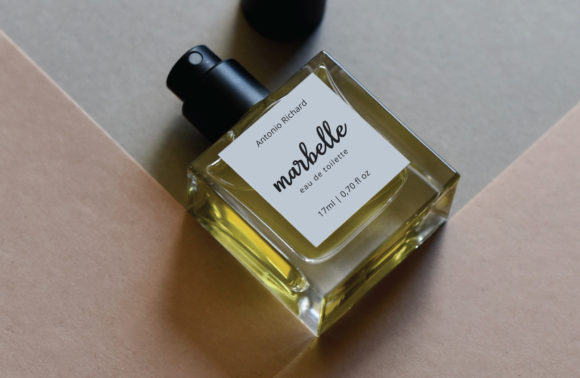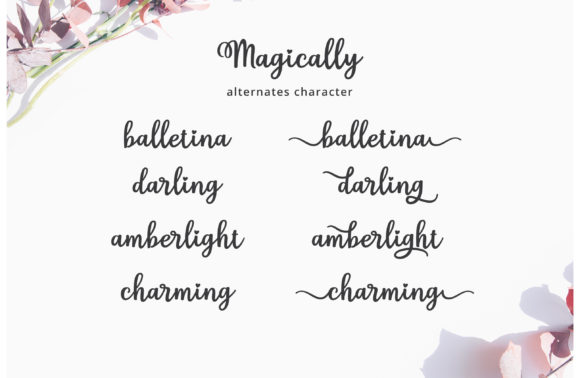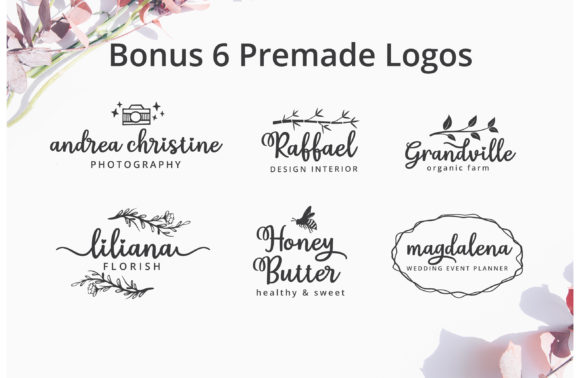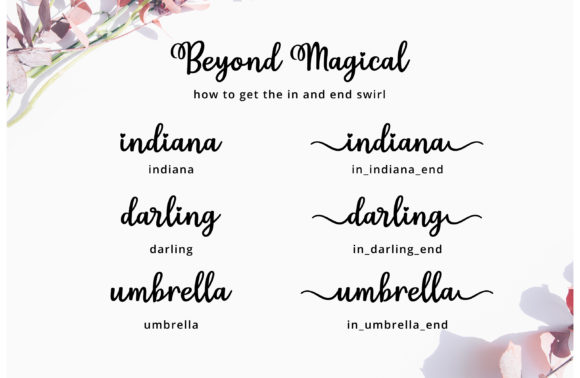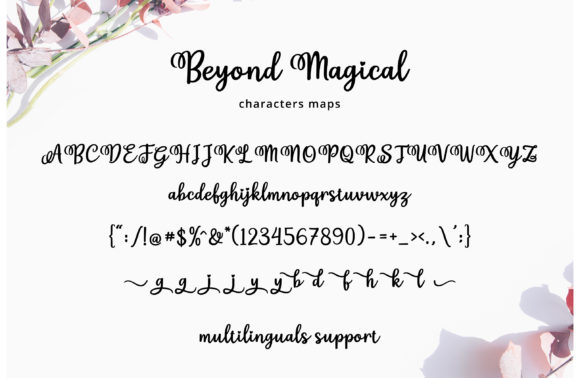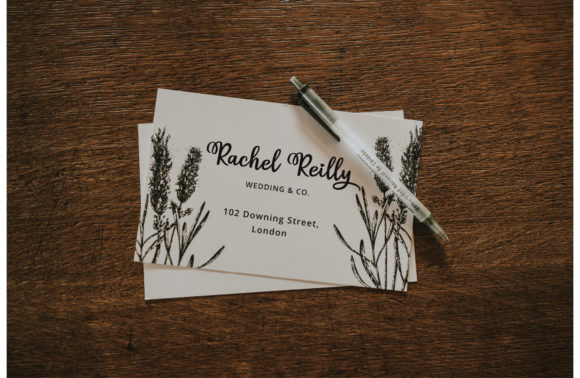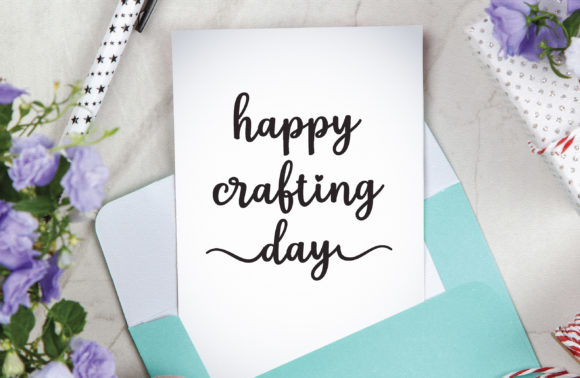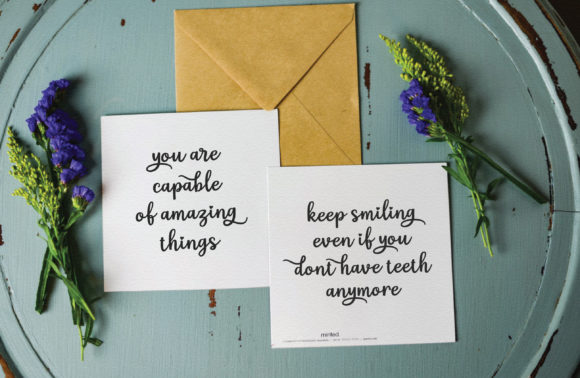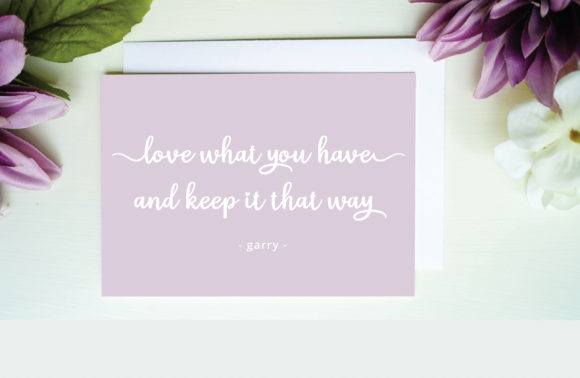
Beyond Magical Font
About Beyond Magical Font
Beyond Magical is a sweet and cool handwritten font with a unique feel. It will turn any design project into a piece of art!